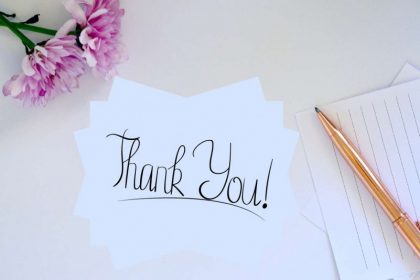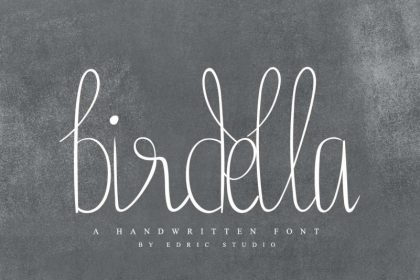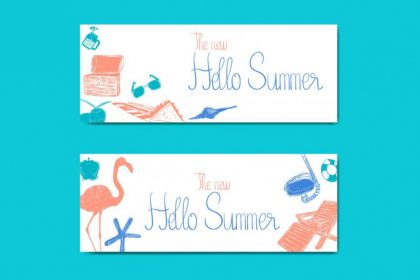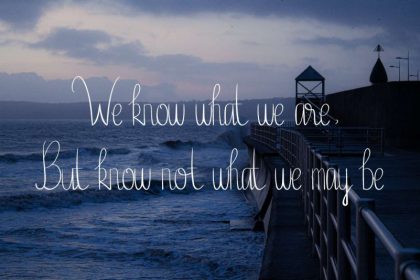
Birdella Calligraphy Font
The newest font from our lovely artist : Birdella Calligraphy Font This is a Calligraphy font, handcrafted from our Studio here in, Indonesia. The artists/designers of this beautiful tyeface is Widiyanti and Sarah Suci. Birdella Calligraphy Font is an exclusive calligraphy script typeface with brush style. This font has a stunning characters set, perfectly managed with well spaced and kerning. The theme style of this font is elegant, vintage, stylish, sophisticated and classic brush calligraphic style. You wont find any where else, the font like Birdella Calligraphy Font.